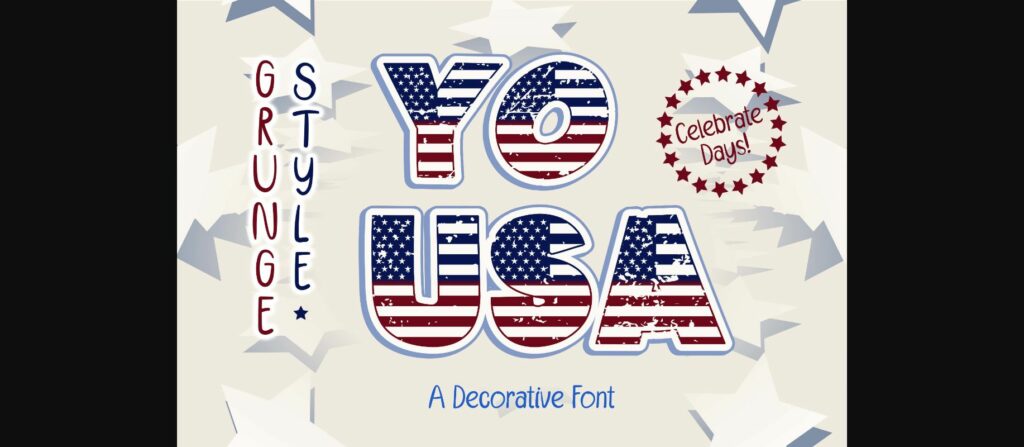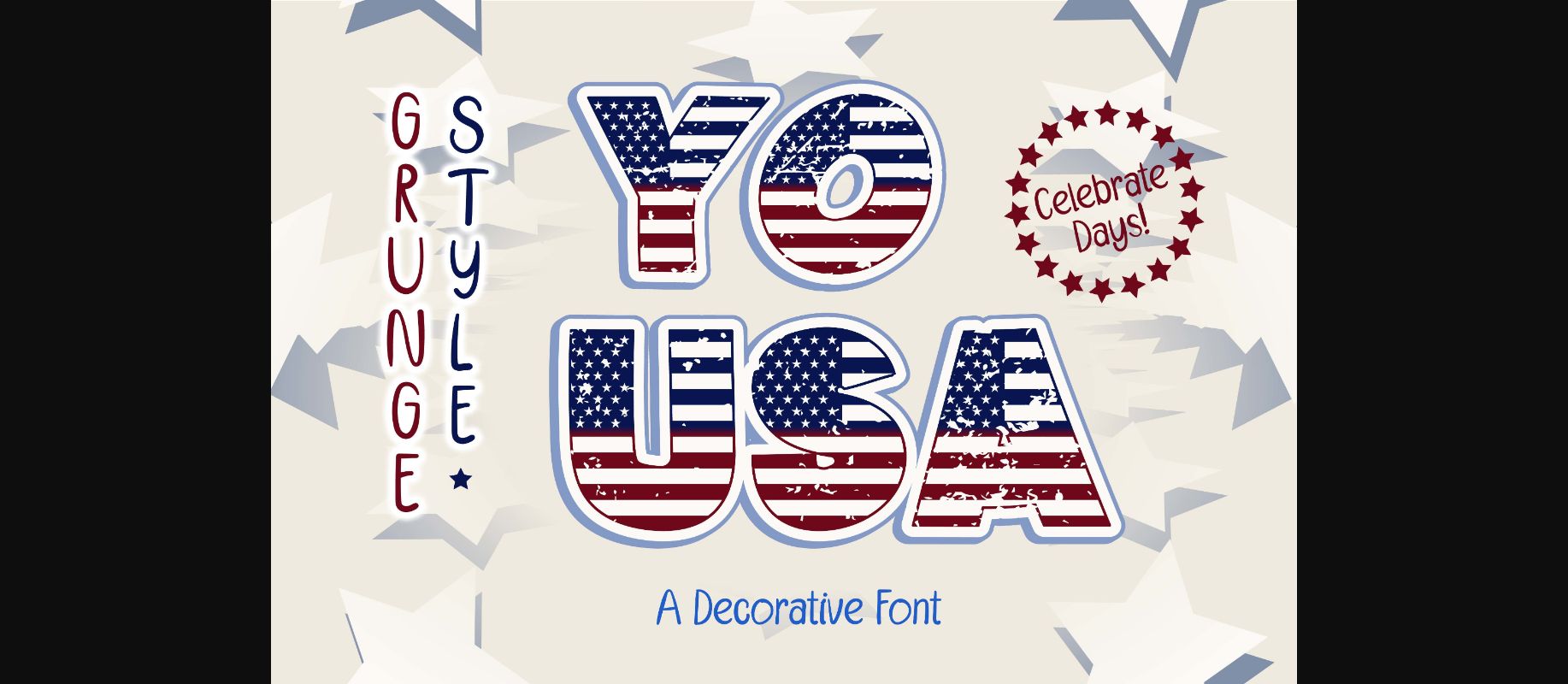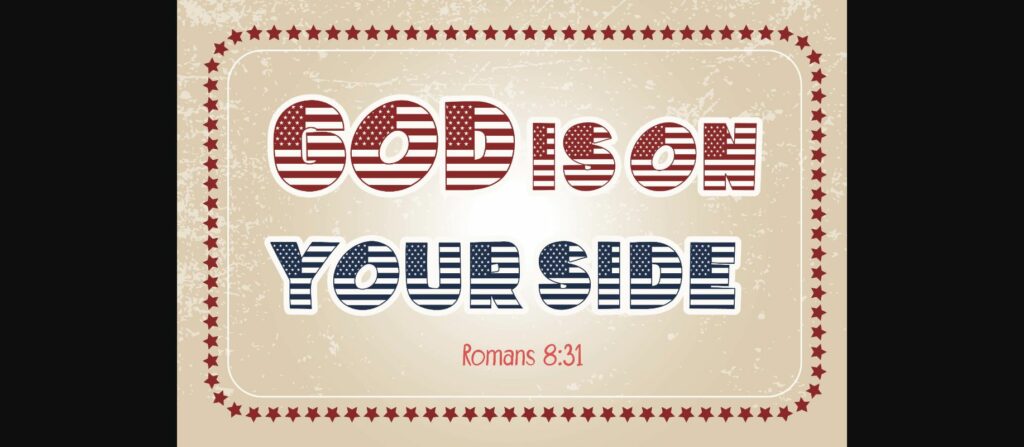
About Yo Usa Font
Yo USA is unique flag decorative font. It looks fun and cool, perfect for cool projects, blog posts, logos, covers, ads, greeting cards, photo albums, decorations, and much more.